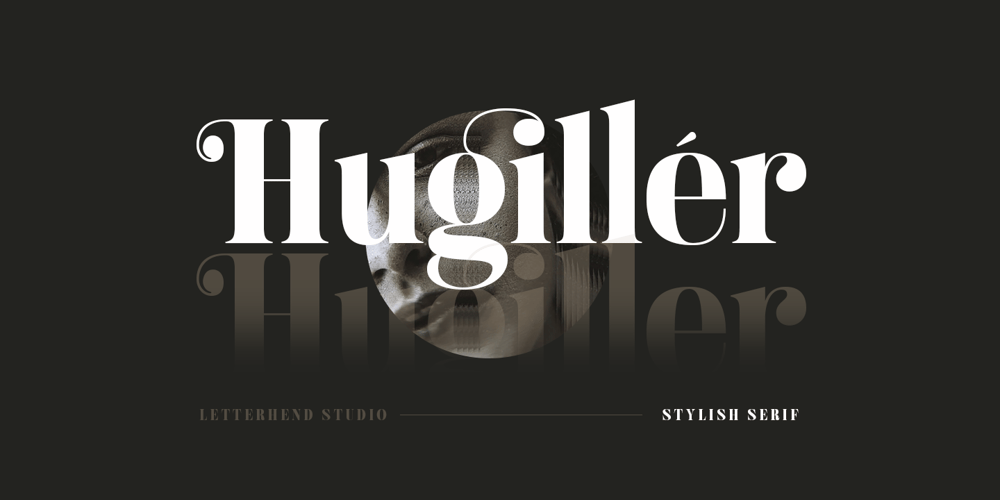
Hugiller Font Family was designed by Hendry Juanda and published by Letterhend. Hugiller contains 1 styles and family package options. Introducing, Hugiller – A high contrast stylish Serif. What makes this font even more unique is the ligatures which gives the modern yet nostalgic feels at the same time, sophisticated and timeless.. This font perfectly made to be applied especially in logo, and the other various formal forms such as invitations, labels, logos, magazines, books, greeting / wedding cards, packaging, fashion, make up, stationery, novels, labels or any type of advertising purpose.Features : uppercase & lowercase numbers and punctuation multilingual alternates & ligatures PUA encoded We highly recommend using a program that supports OpenType features and Glyphs panels like many of Adobe apps and Corel Draw, so you can see and access all Glyph variations.